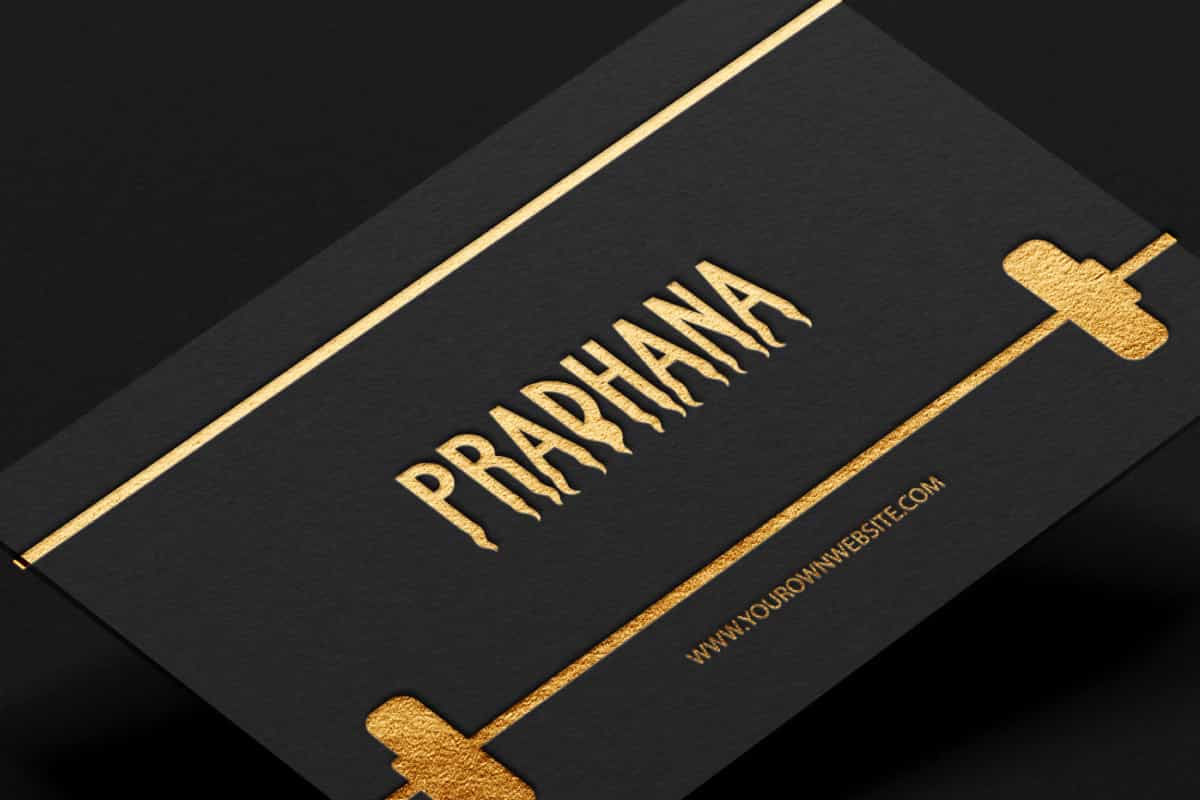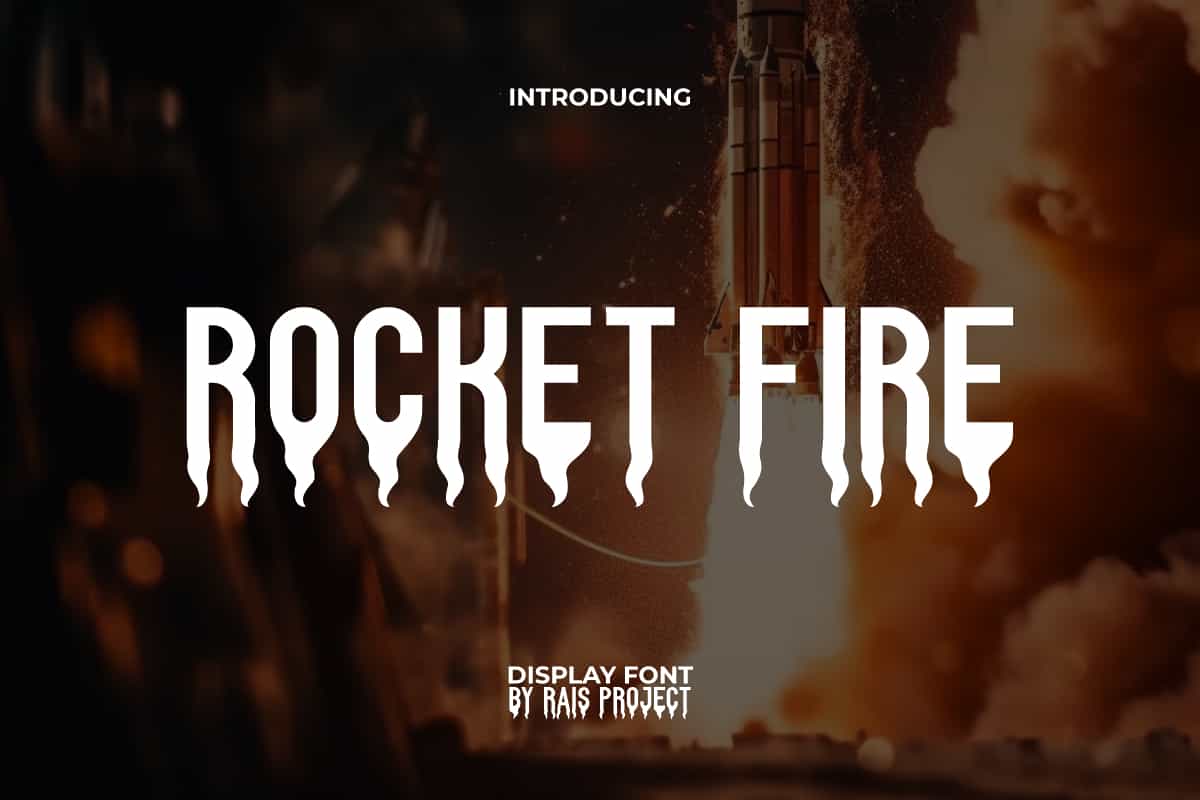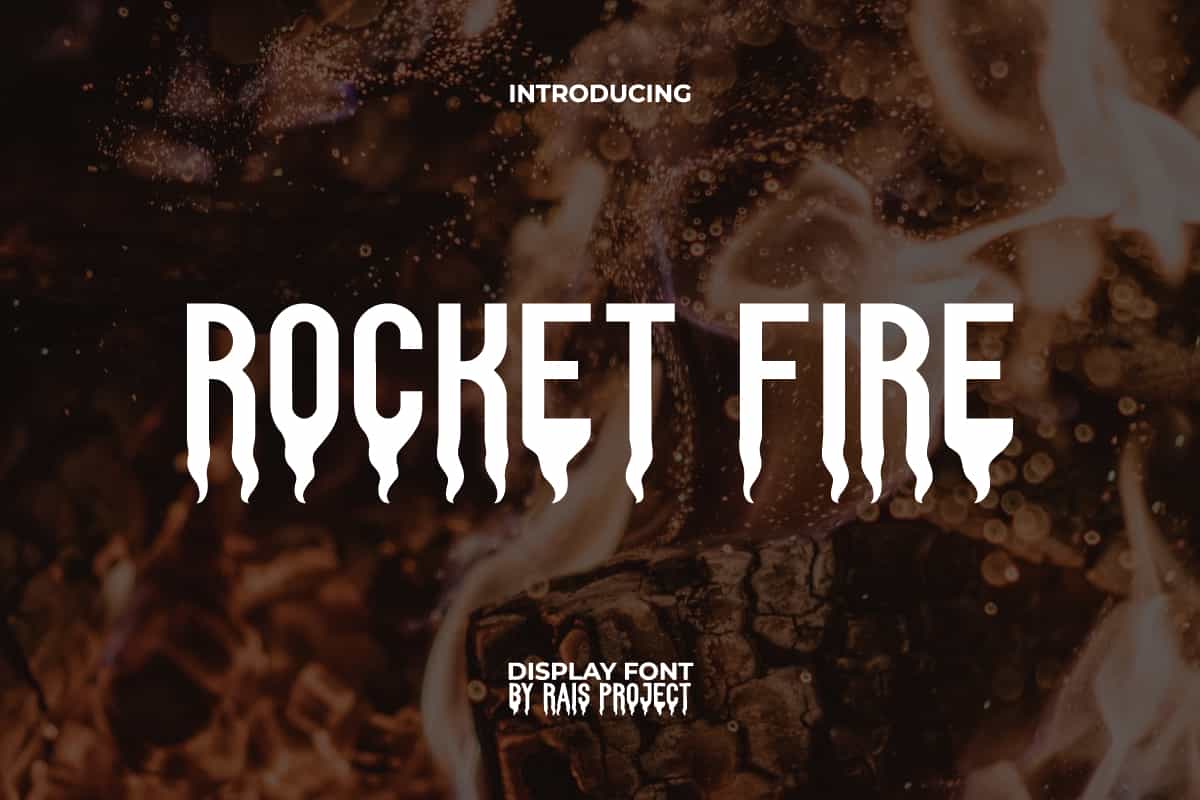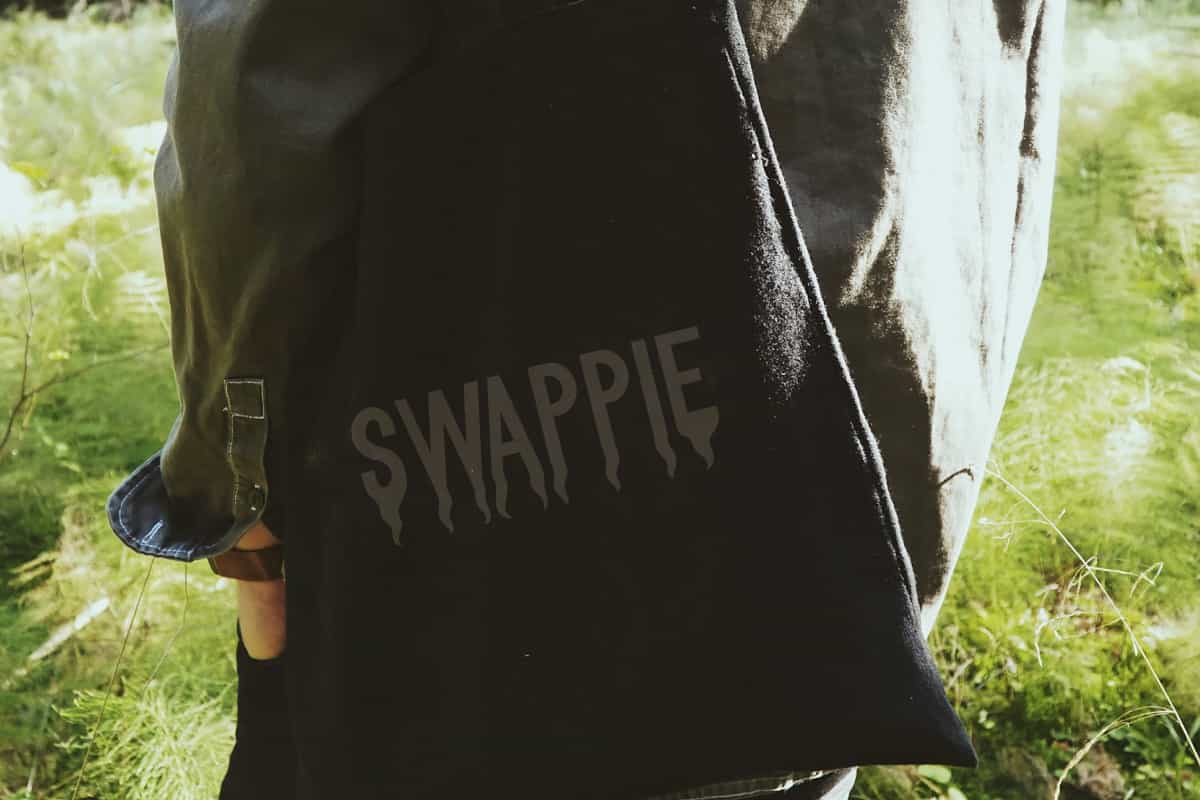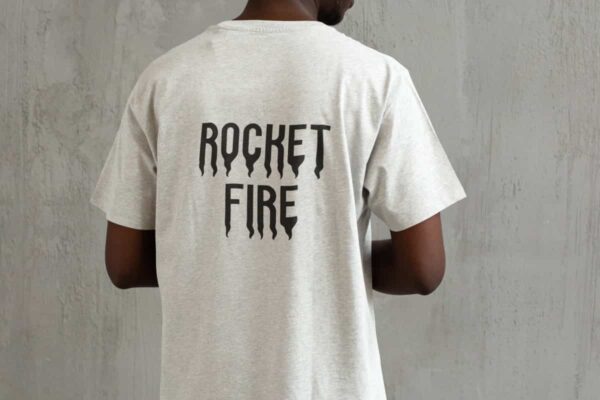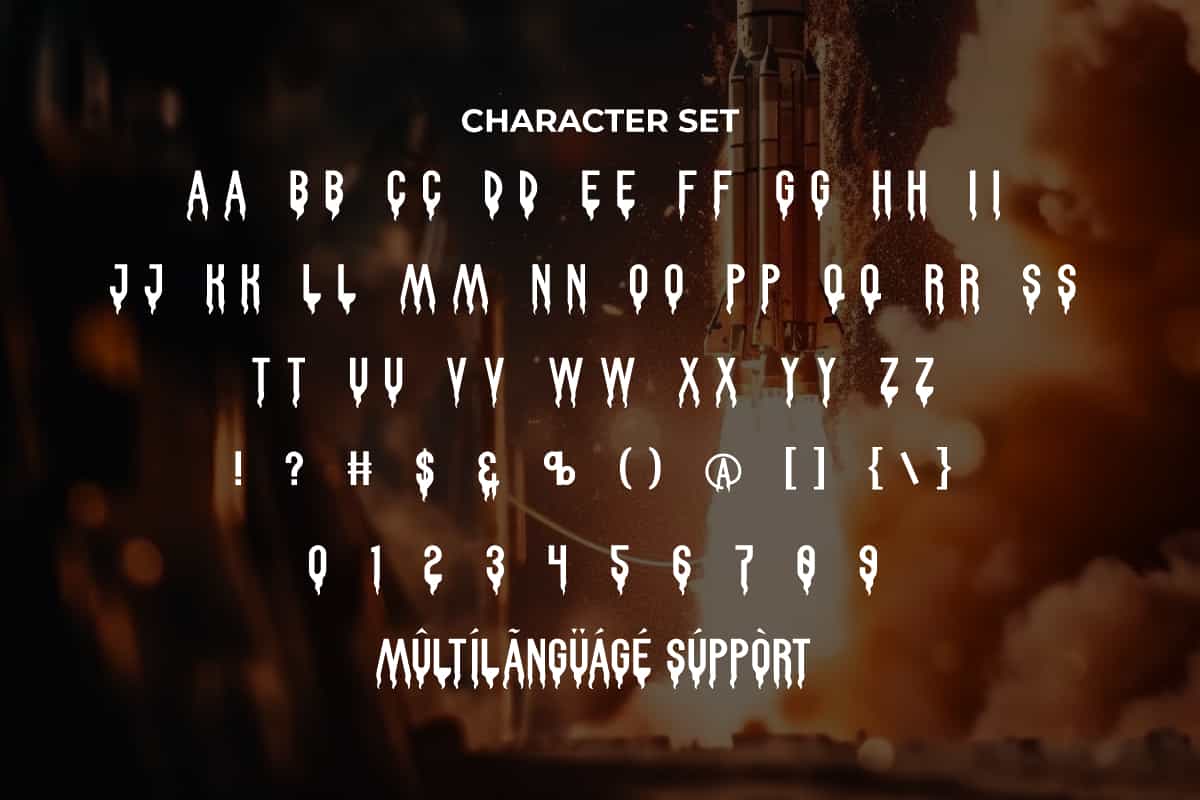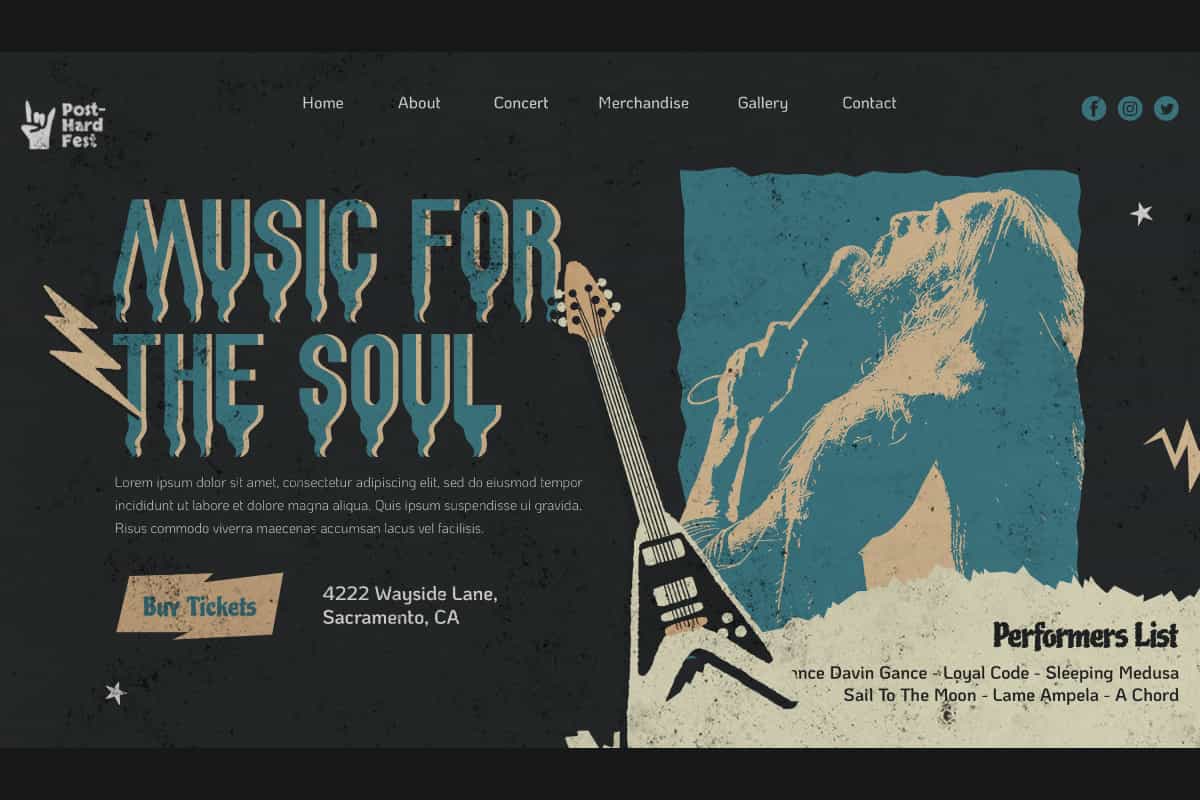
Rocket Fire Font
Rocket Fire Font is a space rocket boosting up launching to the air decorated font. Heat up your designs with this fiery font!
Rocket Fire Font is a launching space rocket boosting up to the air decorated font with fire flame at the bottom. This font is inspired by the fire that come out from the bottom of a rocket as it launches into the sky. It will look great on custom design, stationery, label, signage, poster, invitation, poster, quotes, web, and more!
Rocket Fire Font includes a full set of ALL CAPS for Uppercase and Lowercase Letters, Numerals, and large range of Punctuation. This decorative font will be sought by many people and will be suitable for various industries, such as movie, fashion, game, sports, cafe, event or festival, printing, publishing, sports, etc.